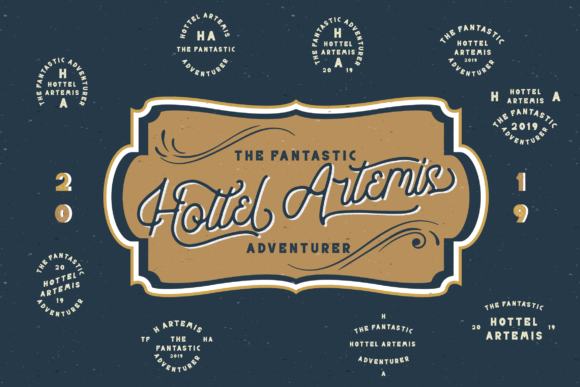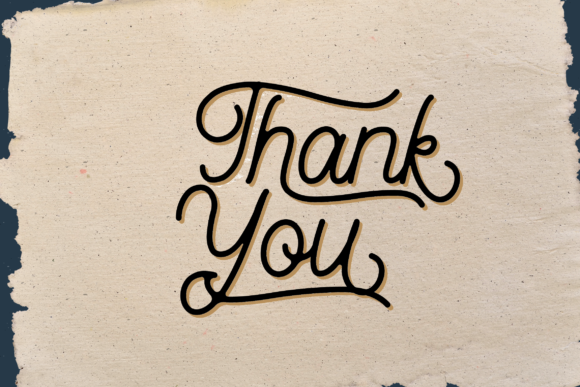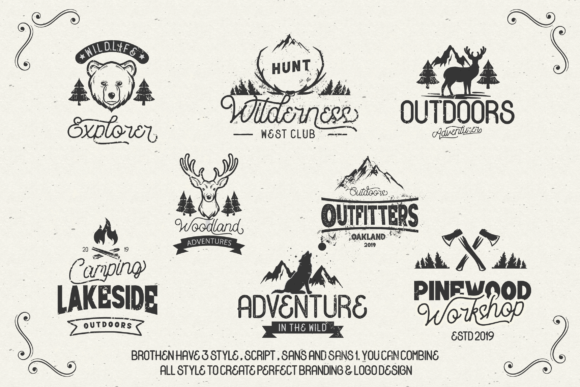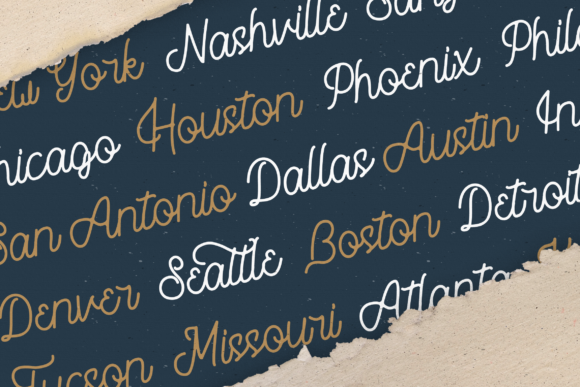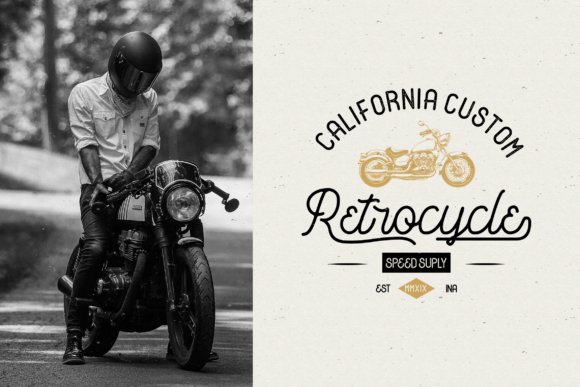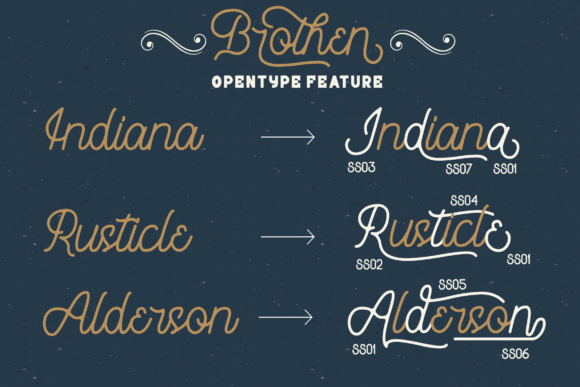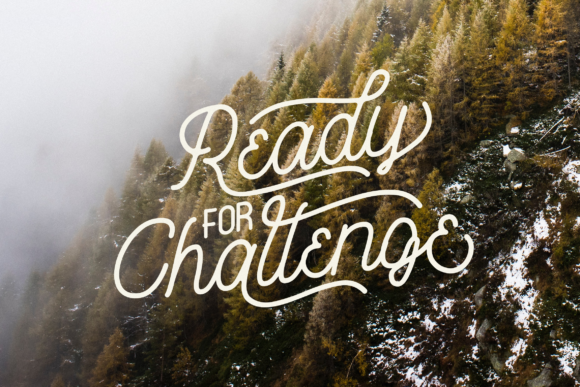
Brothen Font
About Brothen Font
Brothen is a vintage styled, distinct and graceful duo font (script and sans serif). Fall for its ravishing style and use it to create gorgeous designs. This font is PUA encoded which means you can access all of the glyphs and swashes with ease!